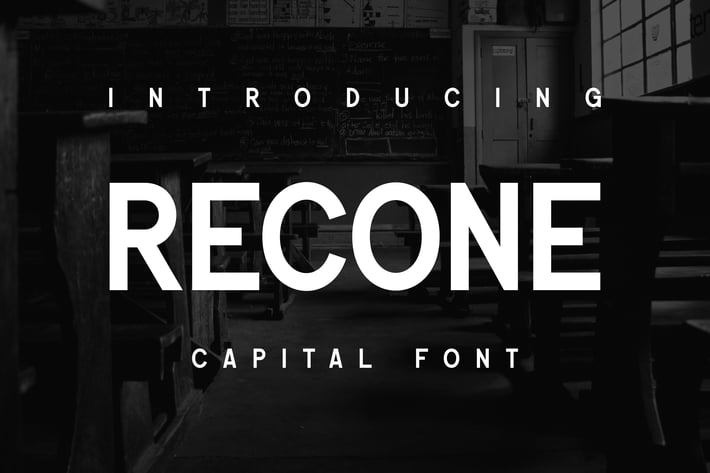
Recone Font
The font is stable in use and maintains the geometry of each glyph. Suitable for use in exposure or layout of writing in posters / print media.
choosing the font size for paragraphs is a wise thing for this font.
Recommended sizes: 12, 14/16, 24, 30 px/pt is the best display of this font.